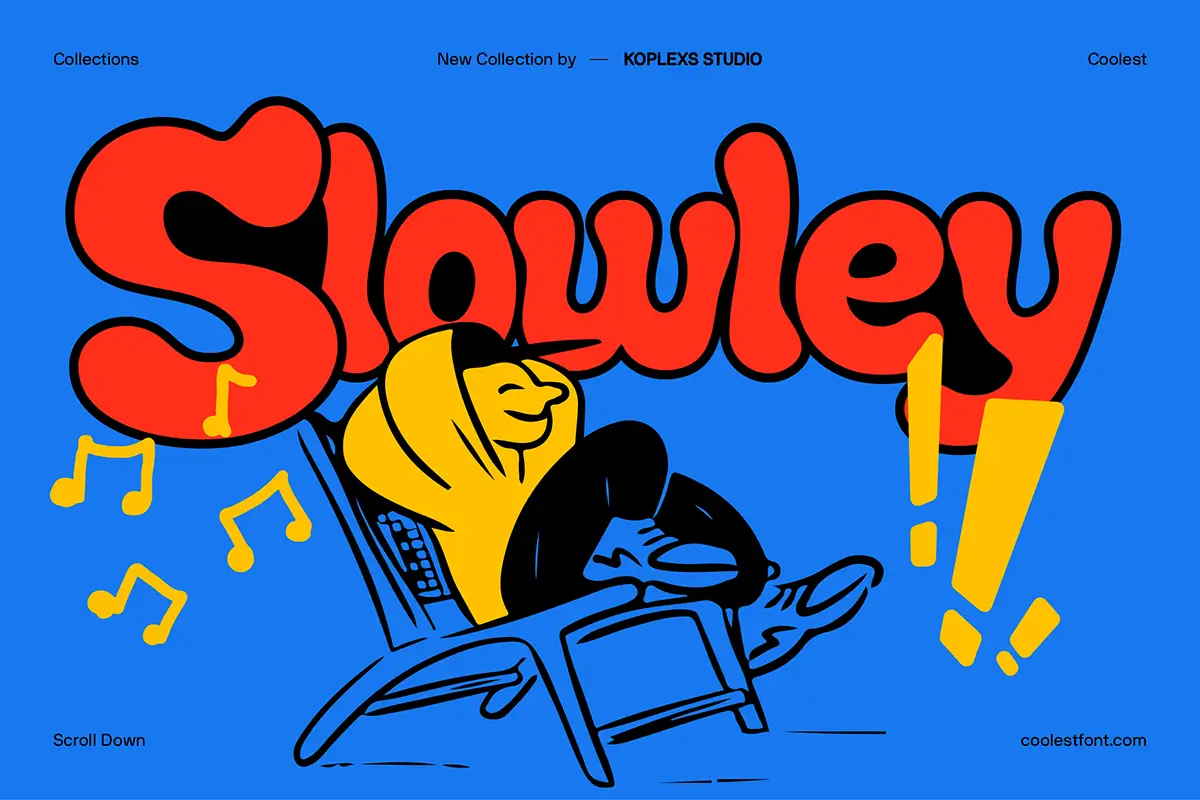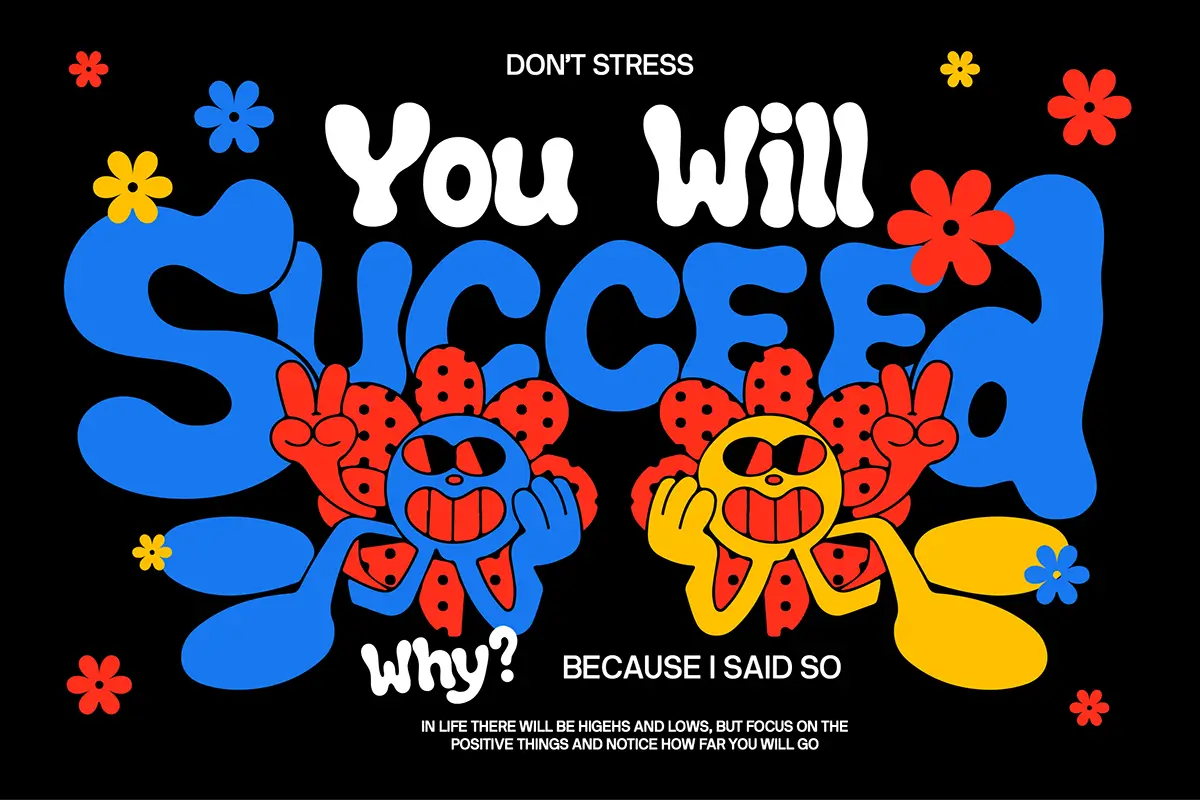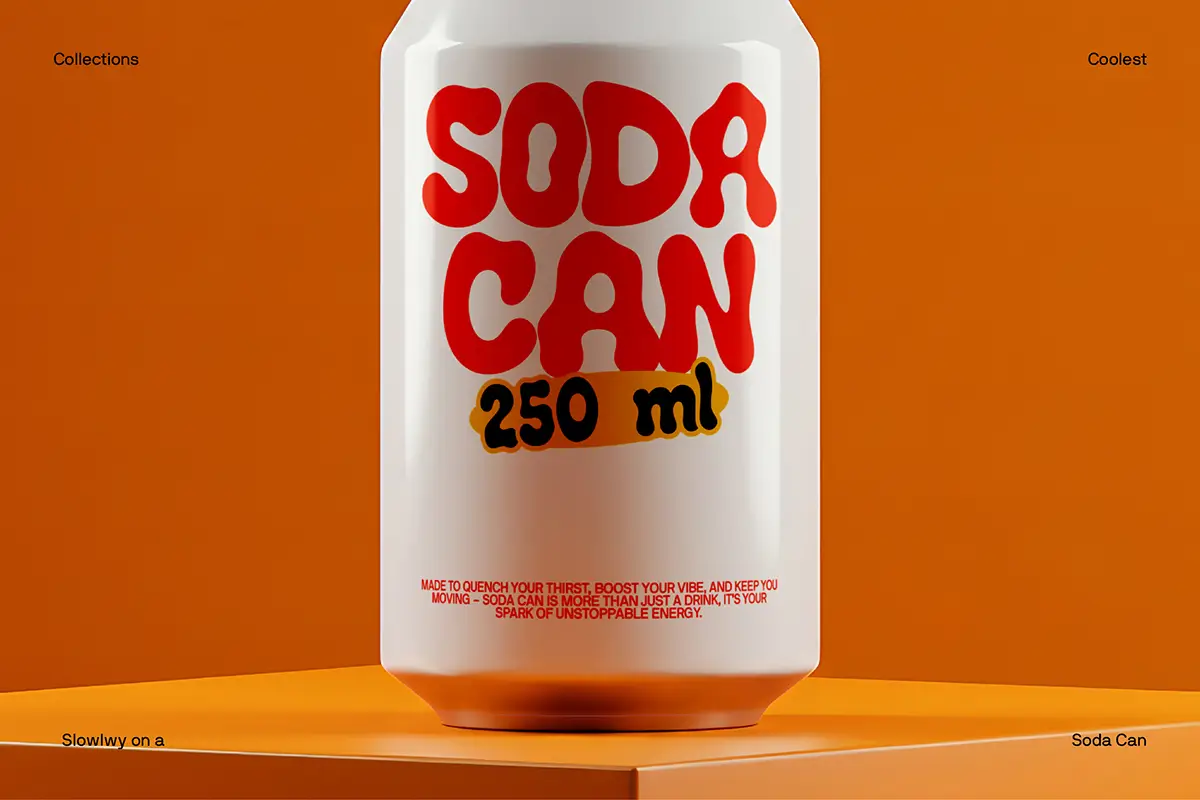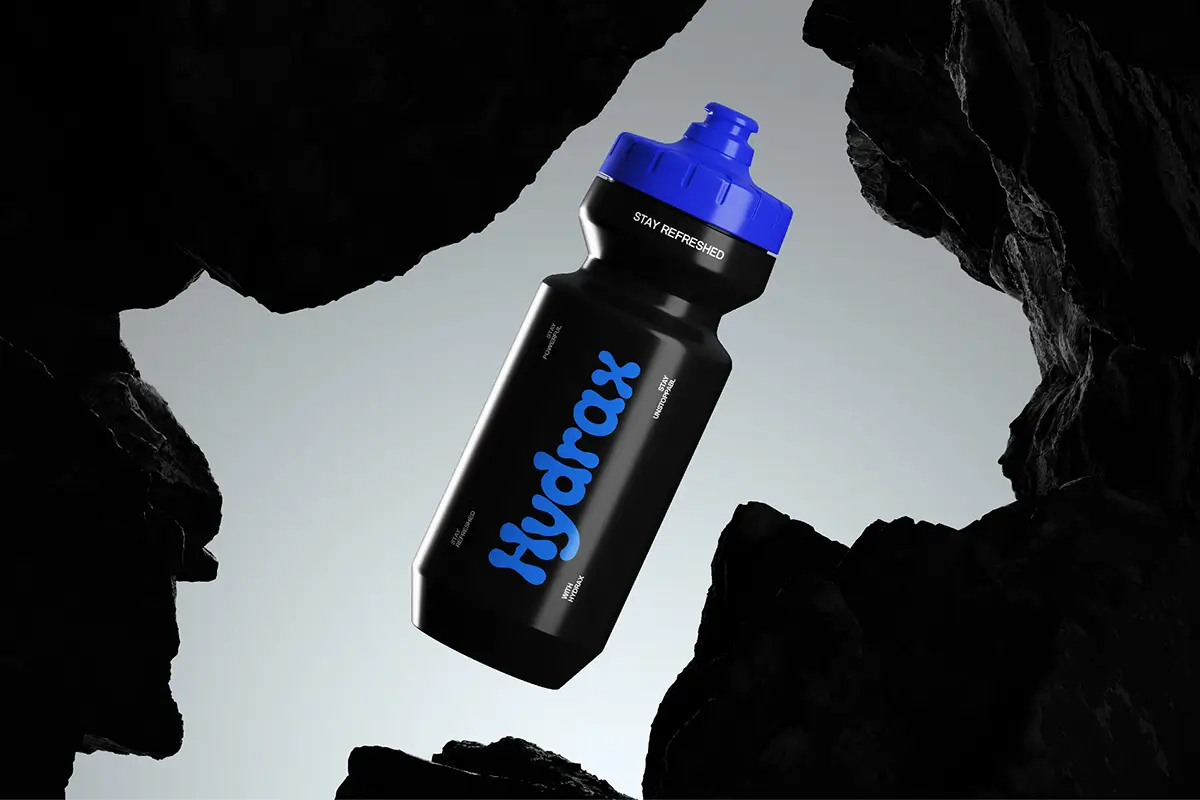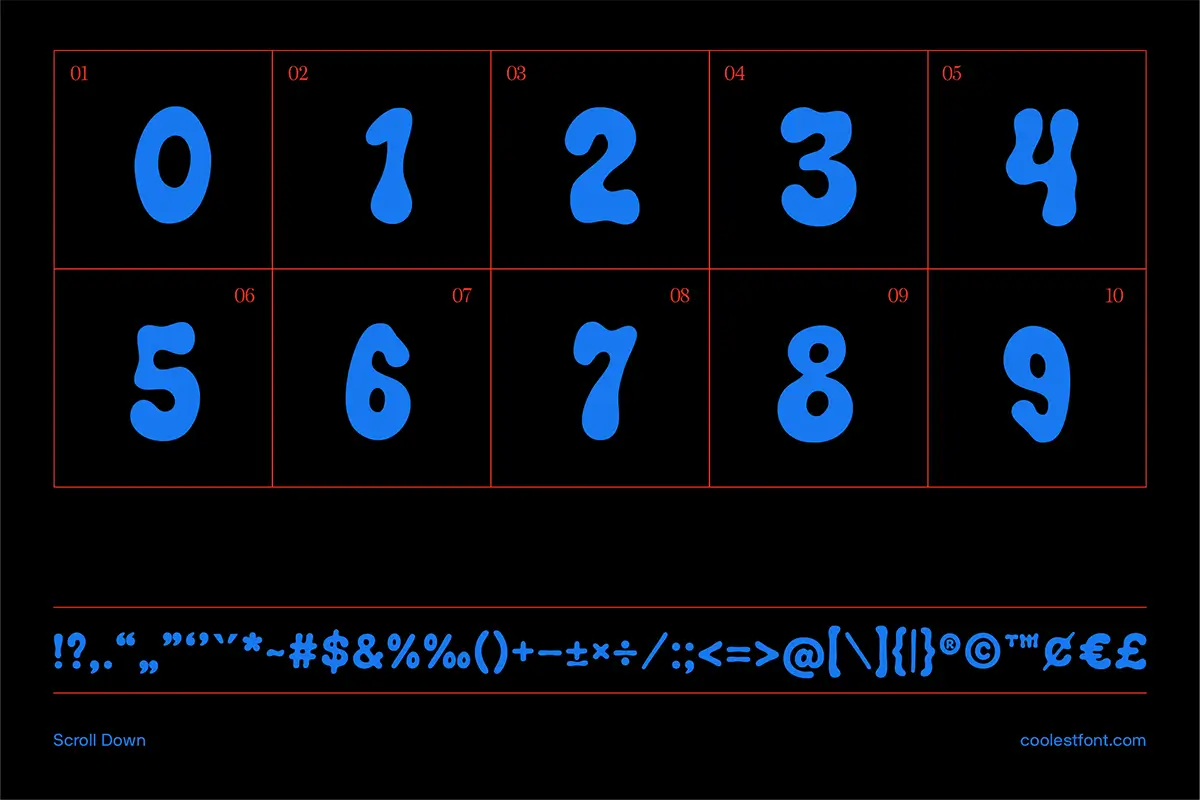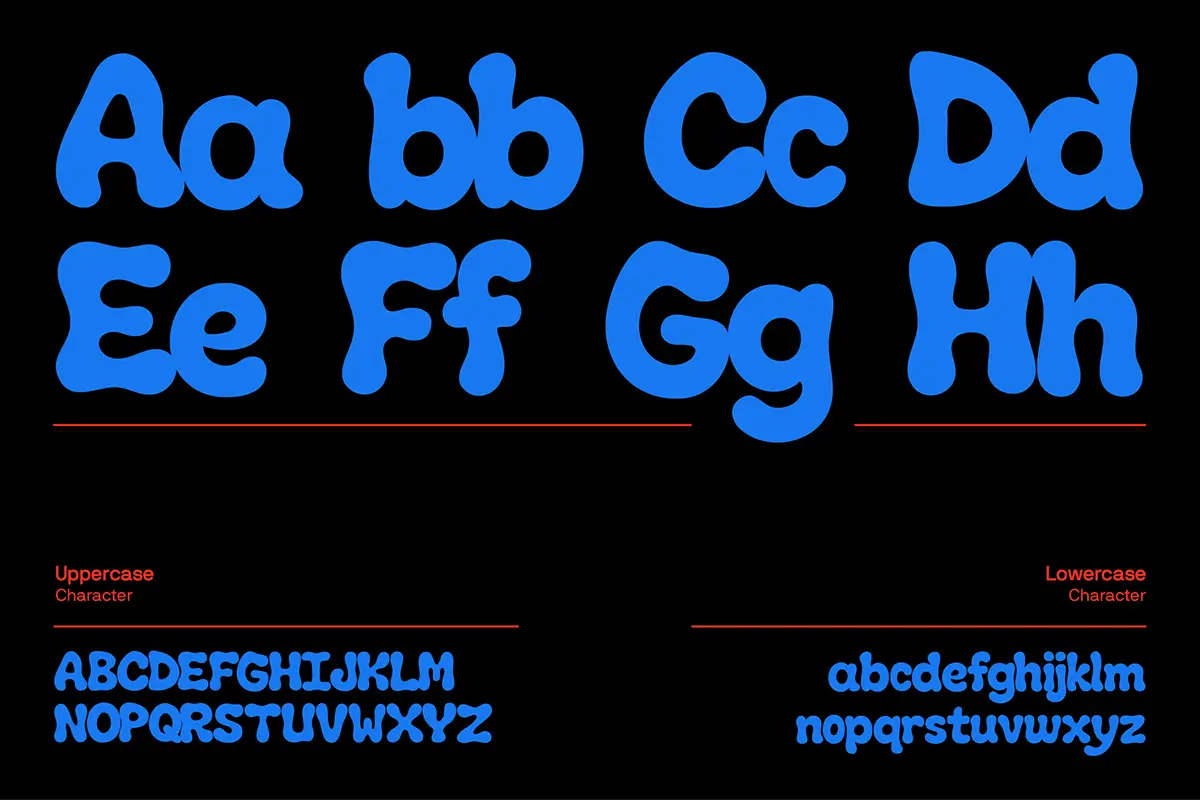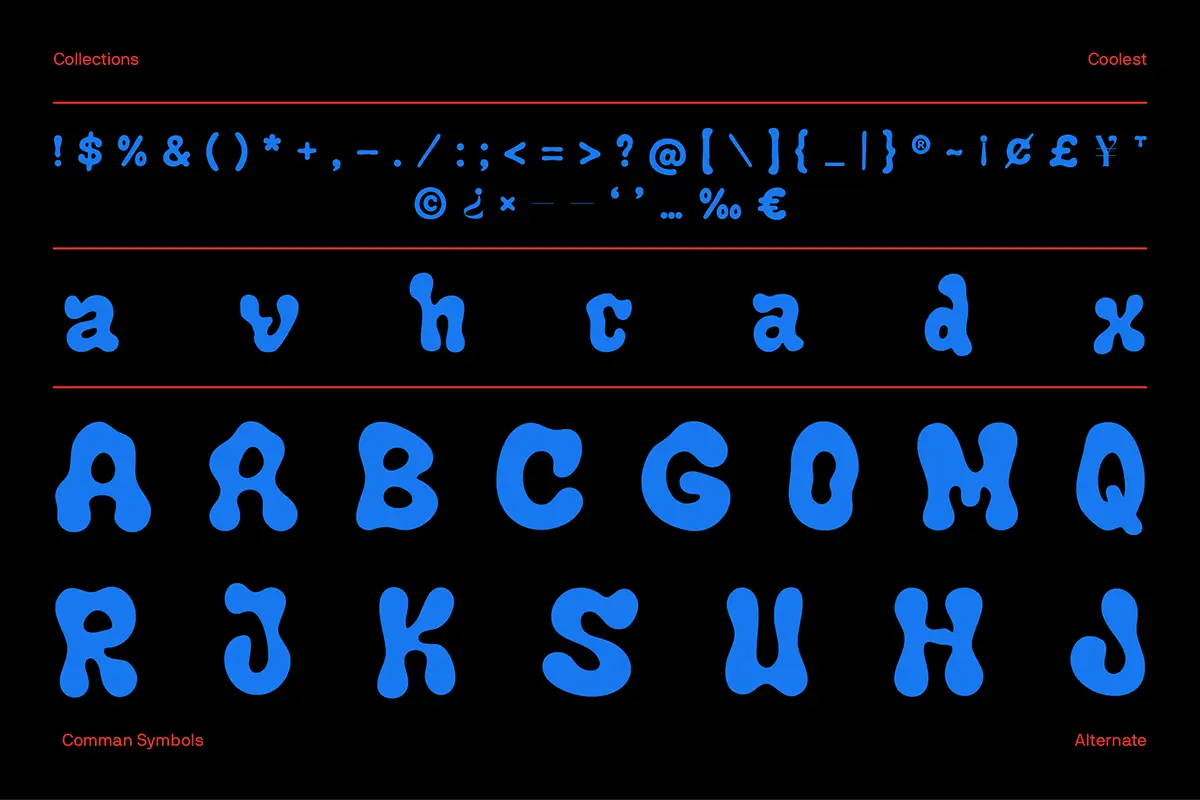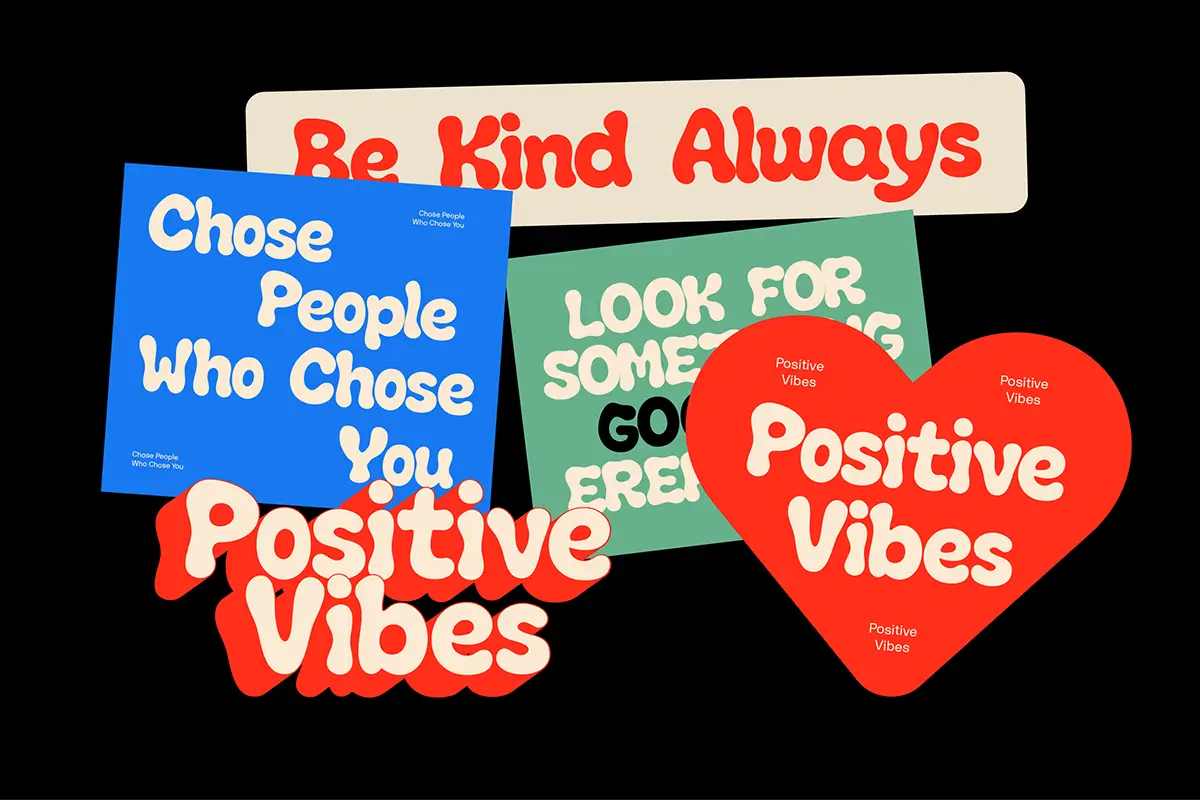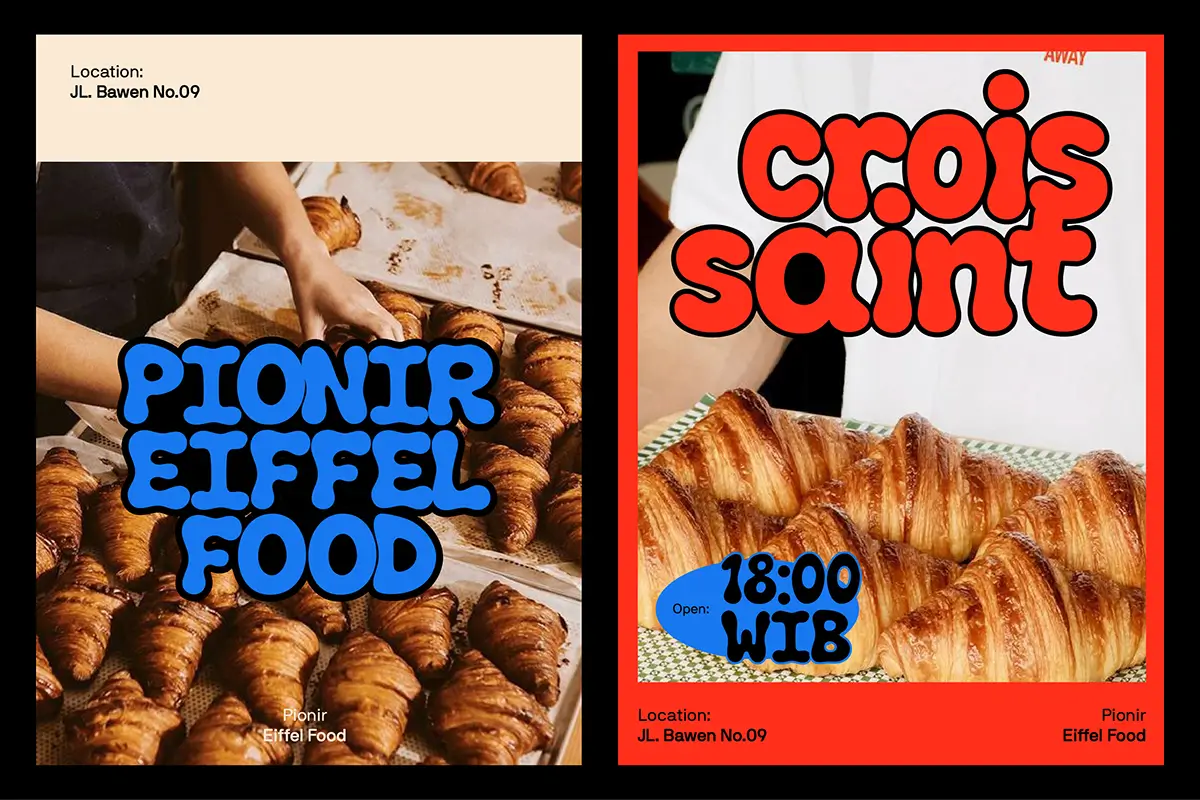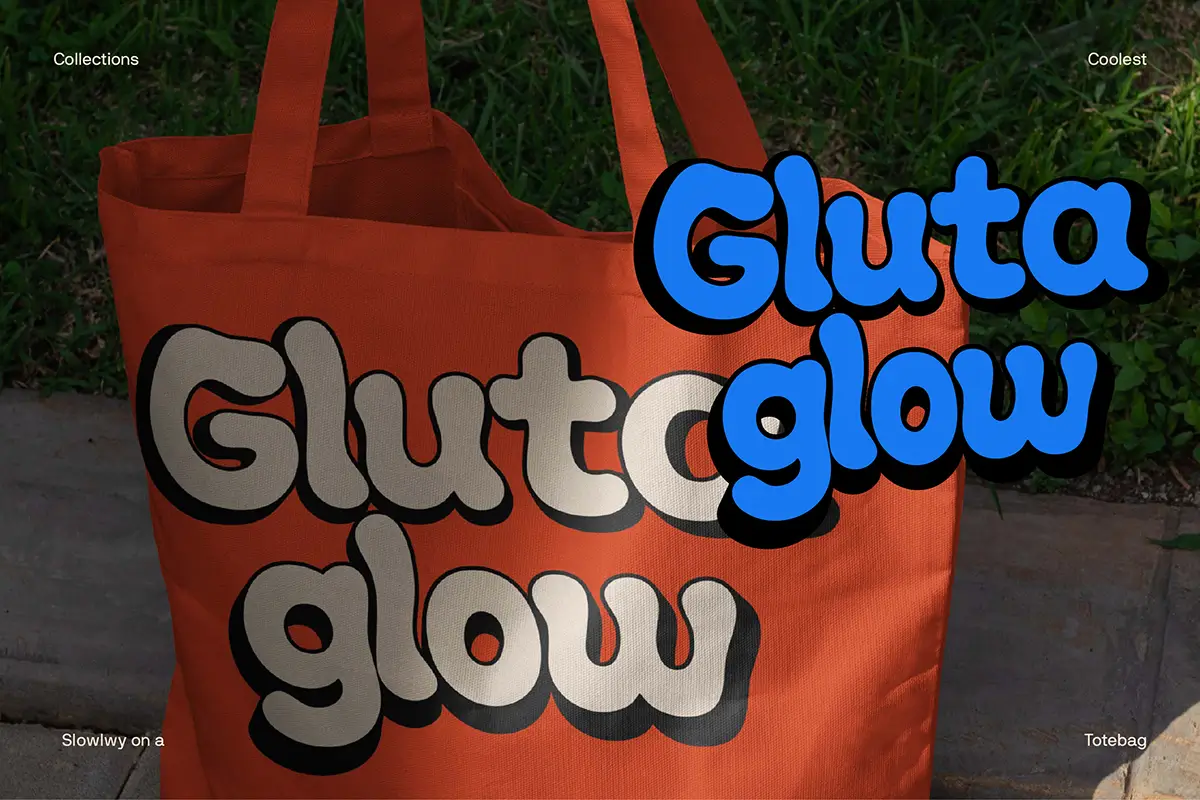
Slowley Font
Slowley Font is a playful display font featuring bold bubble shapes and a fun retro style. Available in Regular and Italic versions, this retro bubble font is perfect for logos, posters, packaging, social media, merchandise, and creative branding projects that need eye-catching typography.
Slowley Font – Bold Bubble Display Font with Retro Style
Slowley Font is a bold and expressive display font crafted with playful bubble-inspired letterforms and strong retro energy. Designed to capture attention instantly, this unique bubble font combines thick rounded shapes, smooth curves, and a cheerful personality that makes every design feel more alive and memorable.
Inspired by vintage pop culture, funky typography, and nostalgic graphic styles, Slowley Font delivers a creative visual experience that is both fun and modern. This stylish retro font is perfect for designers who want typography with character, warmth, and bold visual impact.
Slowley Font includes both Regular and Italic styles, giving you the flexibility to create dynamic layouts and more expressive typography compositions. The Regular style offers a solid and playful appearance, while the Italic style adds movement, energy, and a more stylish retro feel.
Included Font Styles
• Slowley Regular – Bold, friendly, playful, and highly readable
• Slowley Italic – Dynamic, energetic, stylish, and expressive
Slowley Font Features :
• Standard & Multilingual glyphs
• Alternates
• PUA Encoded Characters – Fully accessible without additional design software.
• Fonts include multilingual support
Slowley Font Best Suited For :
• Logo and branding projects
• Posters and flyer headlines
• Product packaging designs
• Merchandise and apparel graphics
• Social media content
• YouTube thumbnails and banners
• Café and restaurant branding
• Kids-themed designs
• Stickers and fun artwork
• Creative advertising campaigns
Main Features :
• Bold bubble-style characters
• Retro-inspired display typography
• Uppercase & lowercase letters
• Numbers & punctuation
• Multilingual support
• Smooth rounded curves
• Perfect for digital and print design
Creative Style Inspiration
Slowley Font is inspired by:
• Retro bubble lettering
• Funky vintage typography
• Pop-art graphics
• Cartoon and comic aesthetics
• Streetwear culture
• Playful modern branding trends
Whether you are designing bold merchandise, fun social content, stylish packaging, or creative branding projects, Slowley Font helps your typography stand out with a playful retro personality and eye-catching visual appeal.
Create fun, bold, and unforgettable designs with Slowley Font.